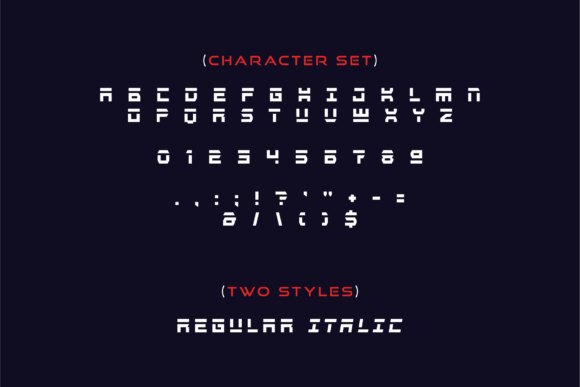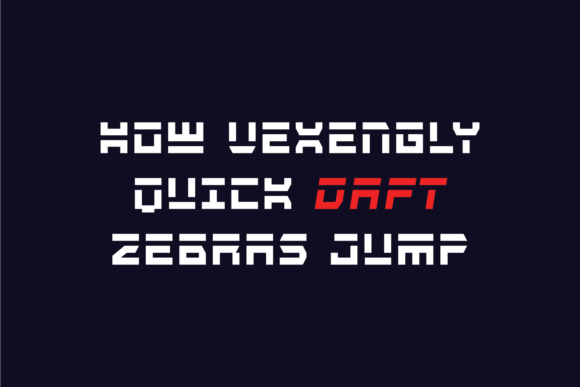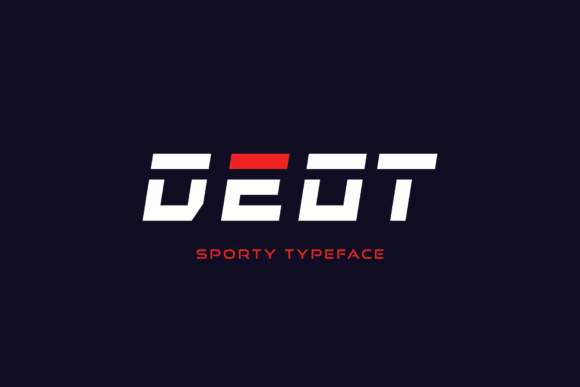
Introducing Deot Font: The Ultimate Sporty Bold Font for Your Creative Projects
In the world of typography, fonts play a crucial role in conveying the tone and personality of a brand or design. For designers and crafters looking for a bold and sporty font to make their projects stand out, Deot Font is an excellent choice. Deot is a futuristic font that features strong blocky glyphs, making it perfect for a wide range of applications, from logo designs to social media posts, banners, posters, headers, and more.
What Makes Deot Font So Special?
Deot Font is designed to make a statement. Its bold and sporty style is inspired by the world of sports and technology, giving it a unique and modern edge. The font’s strong blocky glyphs are carefully crafted to provide a clean and legible appearance, even at large sizes. This makes Deot Font ideal for designs that require a bold and attention-grabbing typography.
Key Features of Deot Font
- Sporty and Bold Style: Deot Font features a sporty and bold style that is perfect for designs that require a strong and energetic typography.
- Strong Blocky Glyphs: The font’s strong blocky glyphs provide a clean and legible appearance, making it suitable for a wide range of applications.
- Futuristic Design: Deot Font has a futuristic design that gives it a unique and modern edge, making it perfect for designs that require a cutting-edge typography.
- Highly Versatile: Deot Font is highly versatile and can be used for a wide range of projects, from logo designs to social media posts, banners, posters, headers, and more.
Use Cases for Deot Font
Deot Font is a highly versatile font that can be used for a wide range of projects. Here are some use cases where Deot Font can make a big impact:
- Logo Designs: Deot Font is perfect for logo designs that require a bold and sporty typography.
- Social Media Posts: Use Deot Font to create eye-catching social media posts that grab the attention of your followers.
- Banners and Posters: Deot Font is ideal for banners and posters that require a bold and attention-grabbing typography.
- Headers and Titles: Use Deot Font to create bold and sporty headers and titles that add a modern edge to your designs.
Why Choose Deot Font?
There are many fonts available in the market, but Deot Font stands out from the rest due to its unique features and versatility. Here are some reasons why you should choose Deot Font for your next project:
- Unique and Modern Design: Deot Font has a unique and modern design that gives it a cutting-edge edge.
- Highly Legible: The font’s strong blocky glyphs provide a clean and legible appearance, making it suitable for a wide range of applications.
In conclusion, Deot Font is an excellent choice for designers and crafters looking for a sporty bold font to make their projects stand out. Its unique and modern design, strong blocky glyphs, and high versatility make it perfect for a wide range of applications. Whether you’re designing a logo, creating social media posts, or crafting banners and posters, Deot Font is an excellent choice. So why wait? Download Deot Font today and take your designs to the next level!